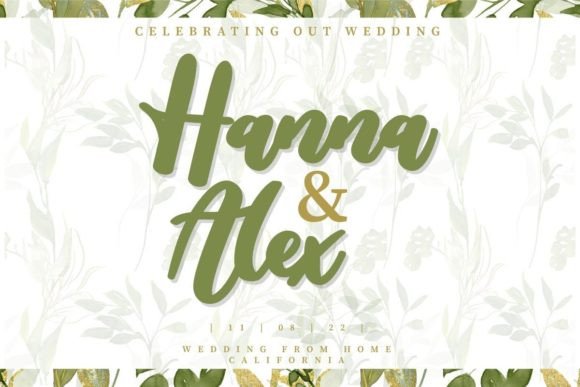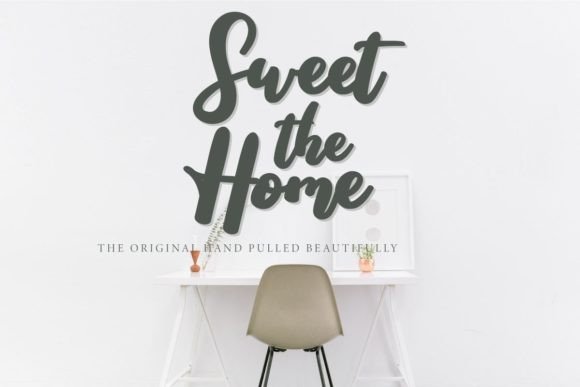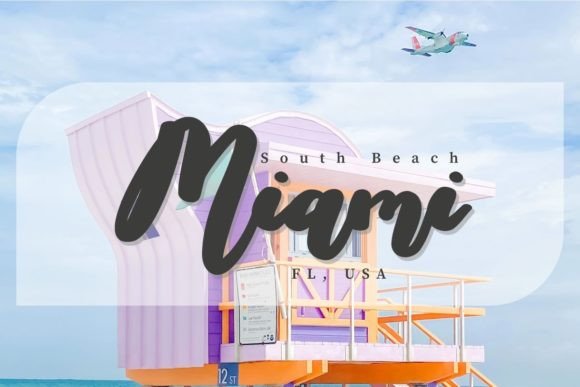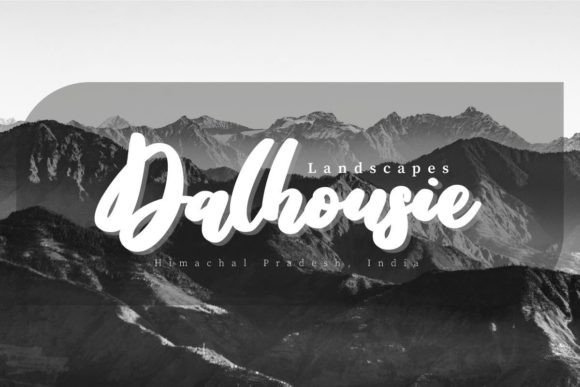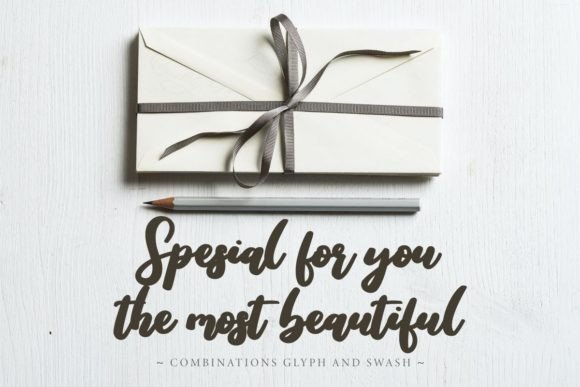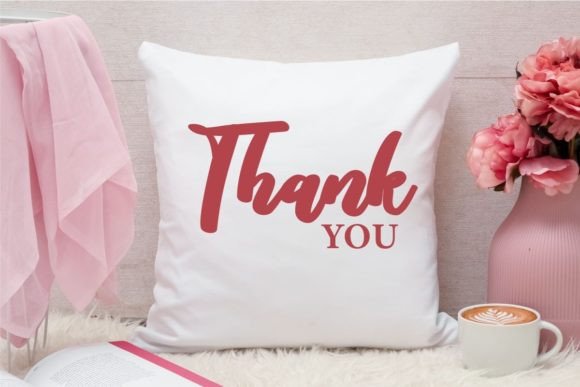
Introduction to Imperfect Font
Have you ever stared at a blank canvas, pen in hand, and wondered where to start? The blank page can be intimidating, but sometimes it’s the perfect moment to get creative. For designers, finding the right font can be just as daunting – until now. Introducing the Imperfect Font, a stunning handwritten font that’s perfect for bringing your creative projects to life.
Whether you’re designing a logo, creating a social media post, or crafting a wedding invitation, the Imperfect Font is a valuable resource that’s sure to elevate your design. Its unique, imperfect charm makes it ideal for projects that require a touch of personality and whimsy. Plus, its versatility means it’s just as suitable for digital designs as it is for print materials – and with a transparent background, you can use it on any background you like.
Key Features of Imperfect Font
- High-quality, unique design with an imperfect aesthetic, perfect for creative projects and adding a touch of personality.
- Comes with a transparent background, allowing for easy layering and customization to suit your design needs.
- Designed to be a versatile design resource, suitable for a wide range of applications, from digital art to print materials.
- Unique characteristics include subtle texture and imperfections, adding an organic feel to your designs.
Honest Review: Imperfect Font
I recently stumbled upon the Imperfect Font and was immediately drawn to its unique, quirky aesthetic. As a designer, I’m always on the lookout for high-quality design resources to elevate my creative projects.
What works well about the Imperfect Font is its versatility. The font is available in various weights and styles, making it perfect for a wide range of design applications. I particularly love the transparent background feature, which allows for seamless integration with other design elements.
- ✨ High-quality design with a unique, imperfect aesthetic
- ✨ Versatile font with various weights and styles
- ✨ Transparent background feature for easy integration
While the Imperfect Font is a great addition to any designer’s toolkit, there are a few limitations to consider:
- ⚠️ Limited language support, which may be a concern for designers working on projects that require specific language support
- ⚠️ Some users may find the font’s imperfections distracting, depending on the design context
Overall, I’m impressed with the Imperfect Font and would highly recommend it to designers looking for a unique and versatile design resource.
Imperfect Font
The Imperfect Font is a unique and creative design resource ideal for adding a personal touch to various projects. This free download offers a high-quality, imperfect design style perfect for creative projects.
Experiment with different font sizes and styles to achieve the desired effect. Combine the Imperfect Font with other design elements to create a unique and eye-catching design. Use the font’s transparent background feature to create a seamless design.
The Imperfect Font is ideal for creative projects such as digital art, graphic design, and typography. It’s also perfect for adding a personal touch to presentations, documents, and websites.
Is the Imperfect Font suitable for high-resolution printing?
Yes, the Imperfect Font is designed to be high-quality and suitable for high-resolution printing. The font’s crisp, clear lines and subtle imperfections will translate well to printed materials, making it an excellent choice for projects that require a professional finish.